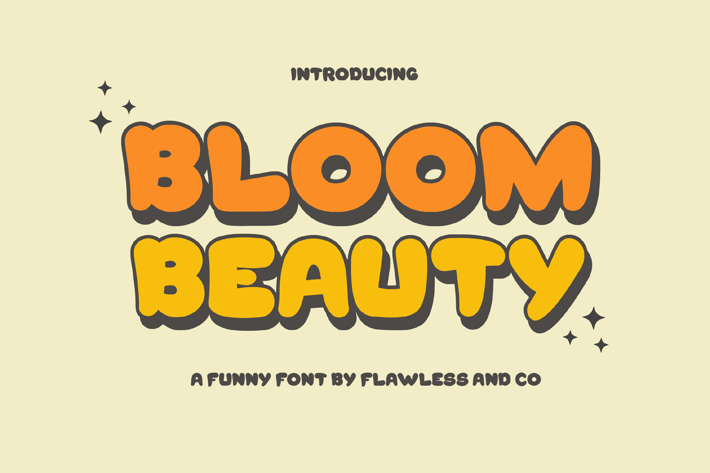
Bloom Beauty - Funny Handwritten Font
Introducing "Bloom Beauty" - a whimsical and bold handwritten font that adds a touch of humor and playfulness to your designs. With its lively and expressive letterforms, Bloom Beauty brings a sense of fun and joy to any project. This font is suitable for branding, business, logos, magazines, and others.